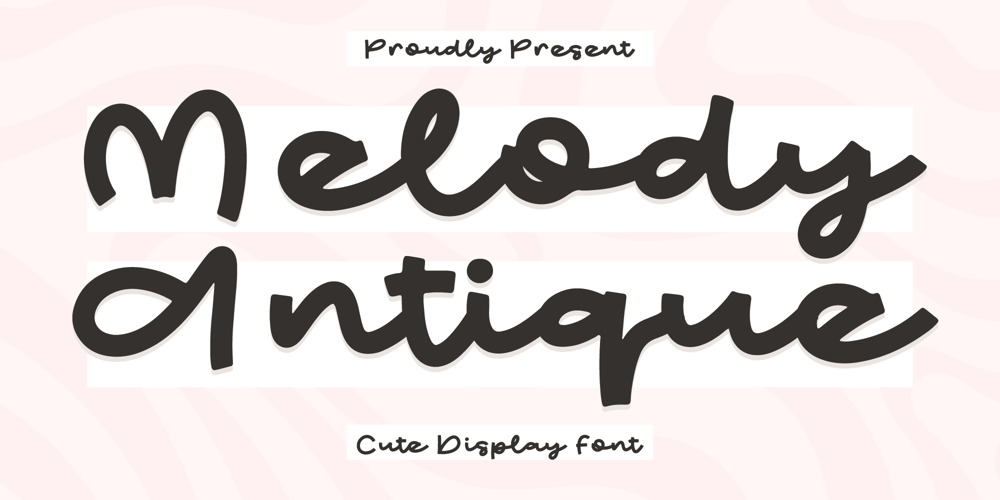
Melody Antique
Melody Antique font
Melody Antique Font Family was designed by Dimas Alif Maulana and published by Integritype. Melody Antique contains 2 styles and family package options. Melody Antique – Cute Display Font, from Integritype Studio, perfect for any project like: logos, branding projects, homewares designs, product packaging, mugs, quotes, posters, shopping bags, t-shirts, covers books, business cards, invitation cards, greeting cards, labels, photography, watermarks, special events and all your other luxury projects that require a premium taste.